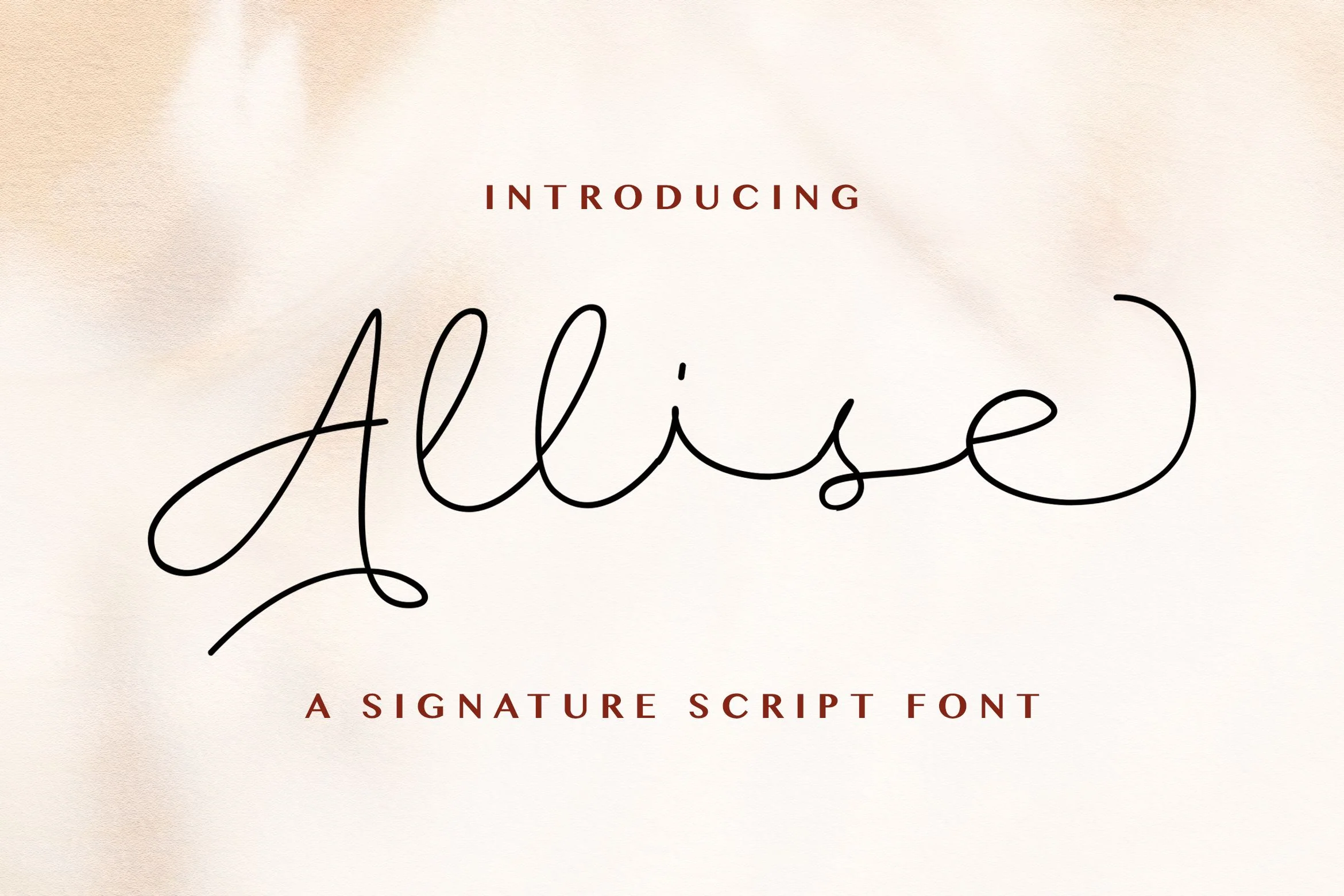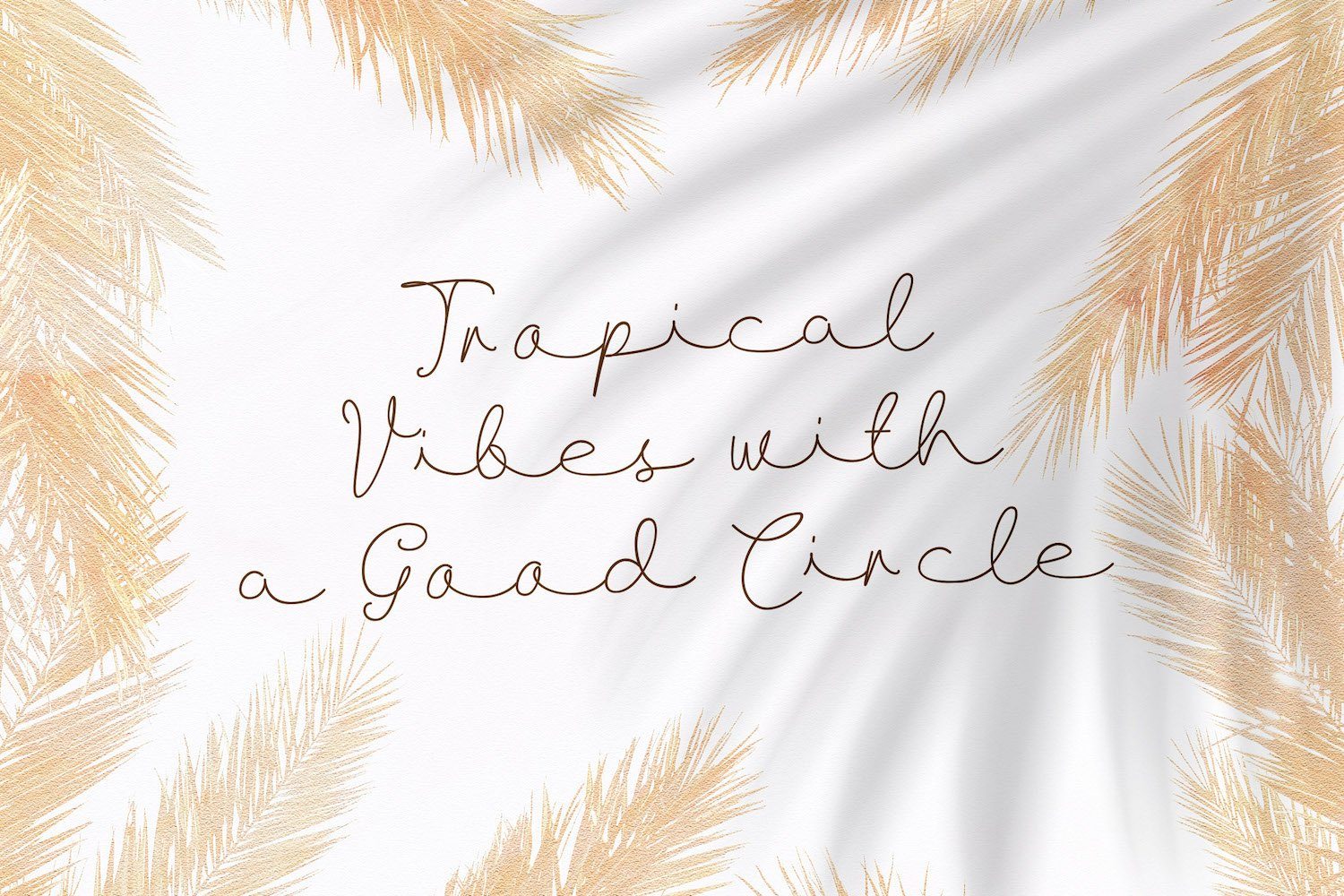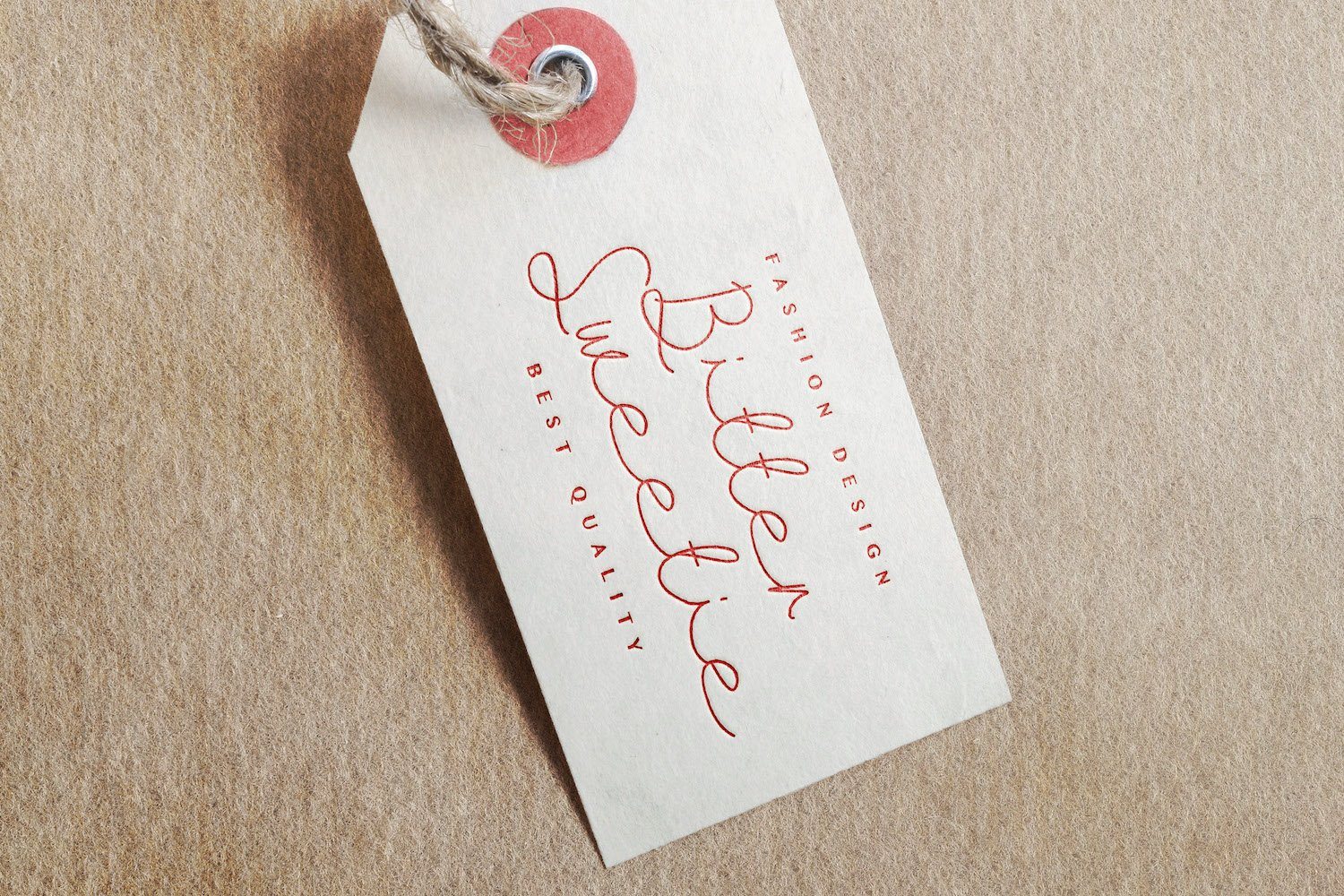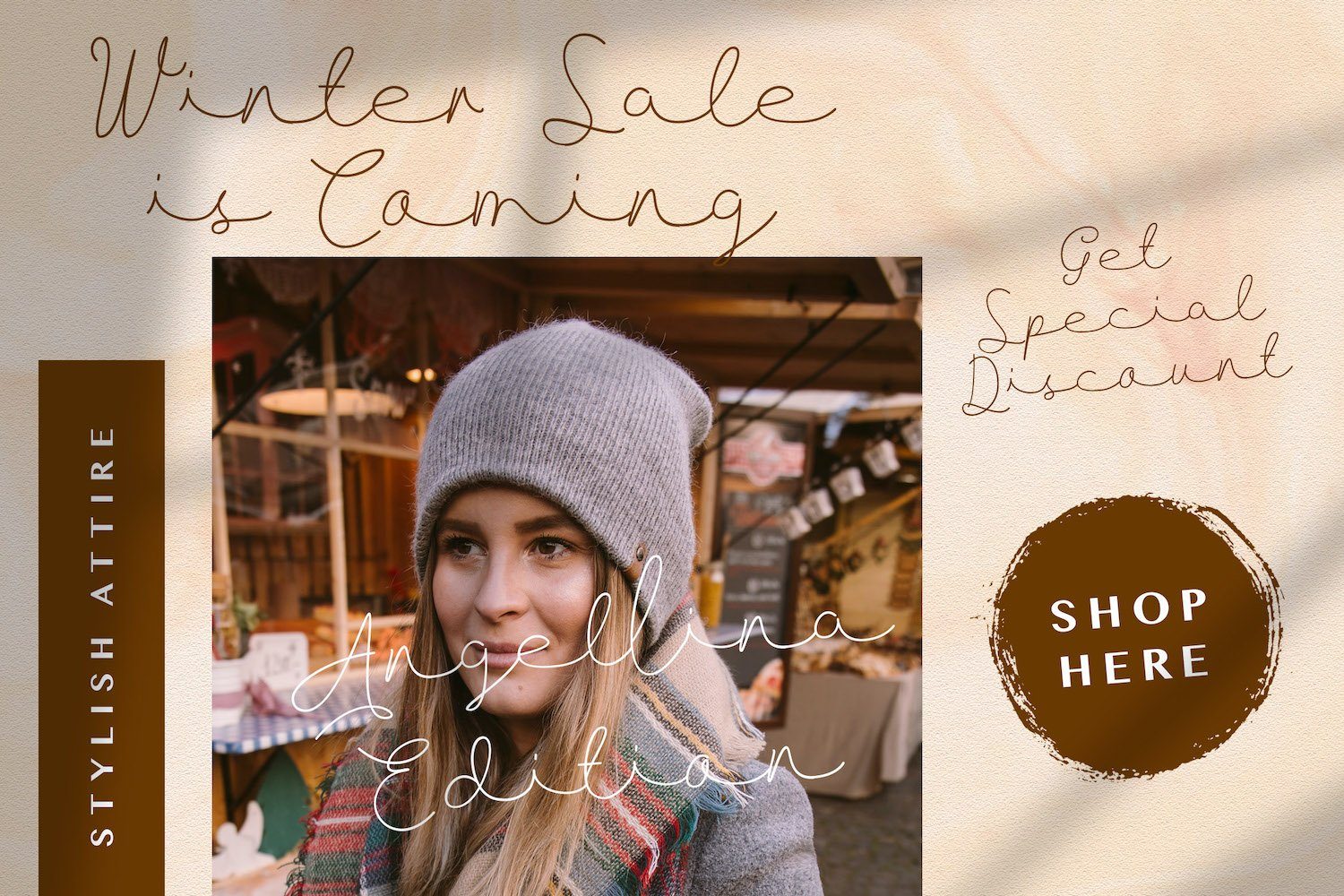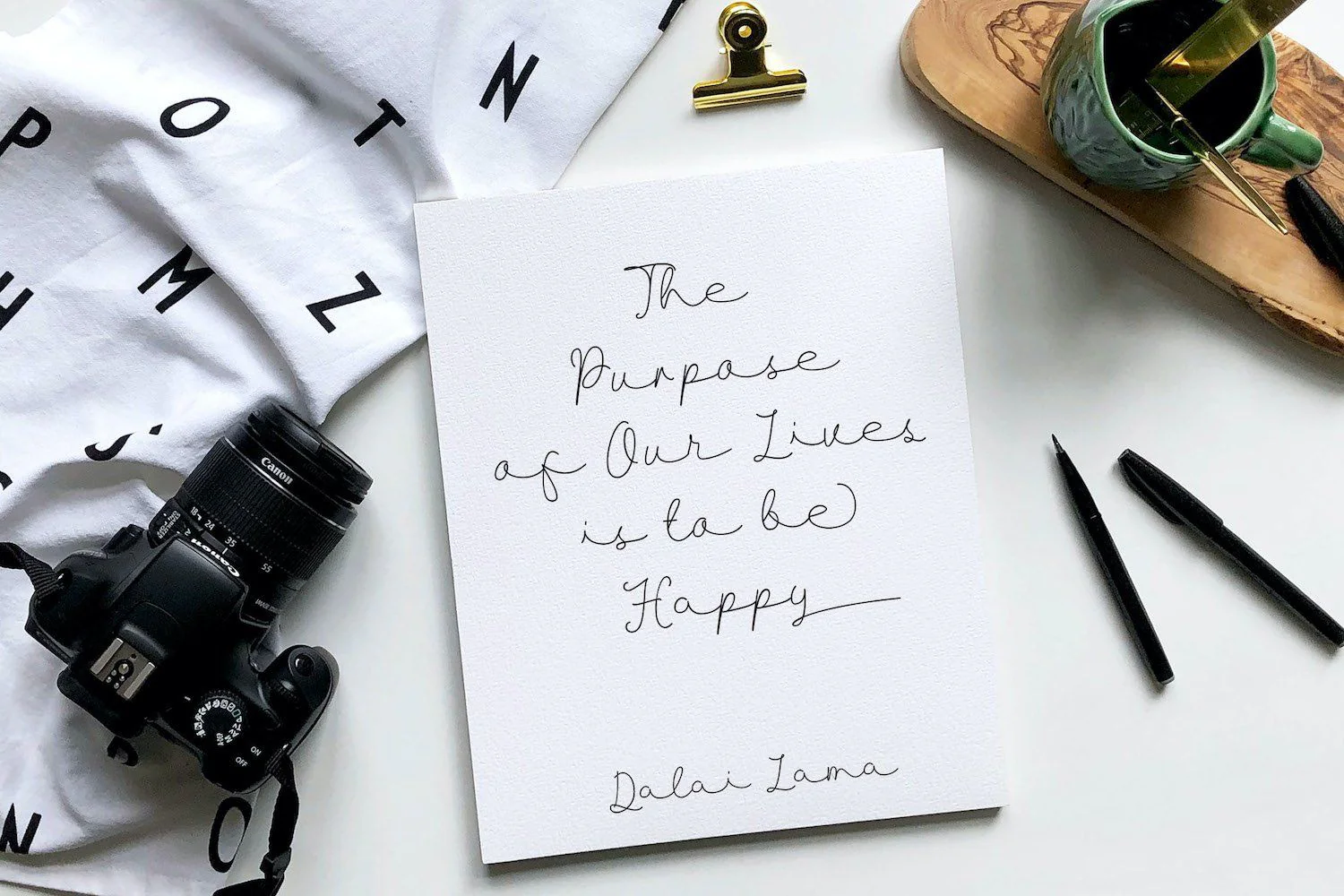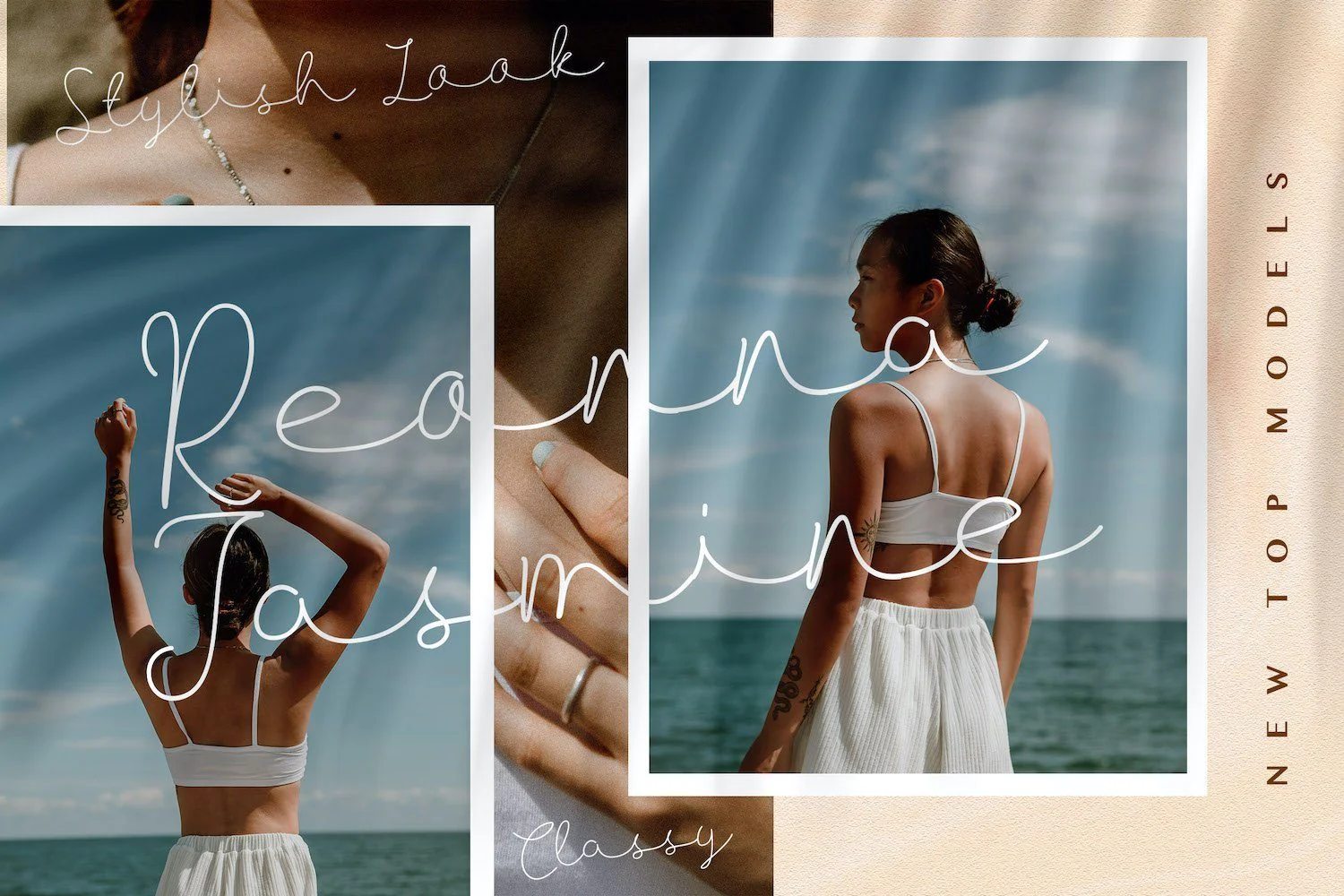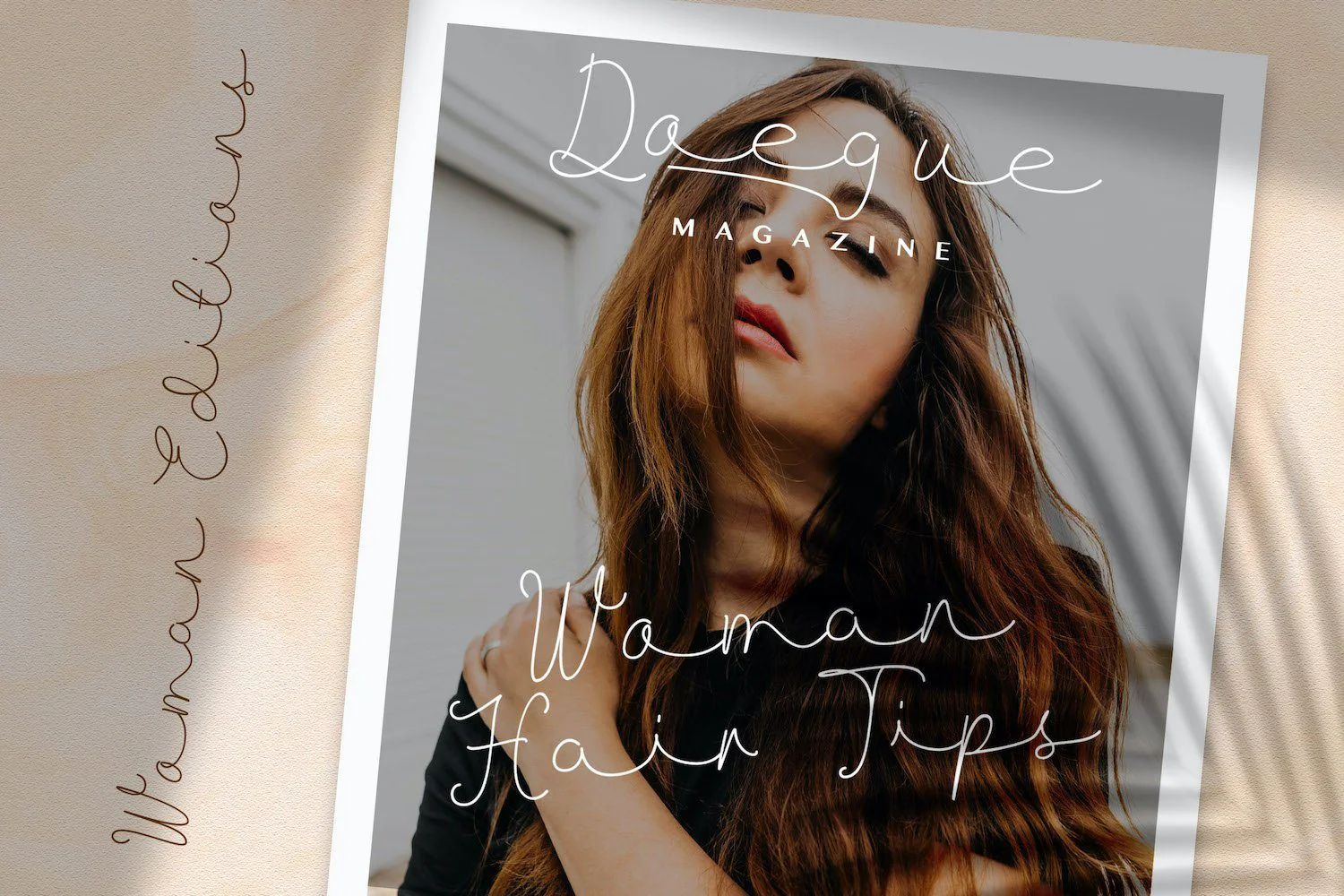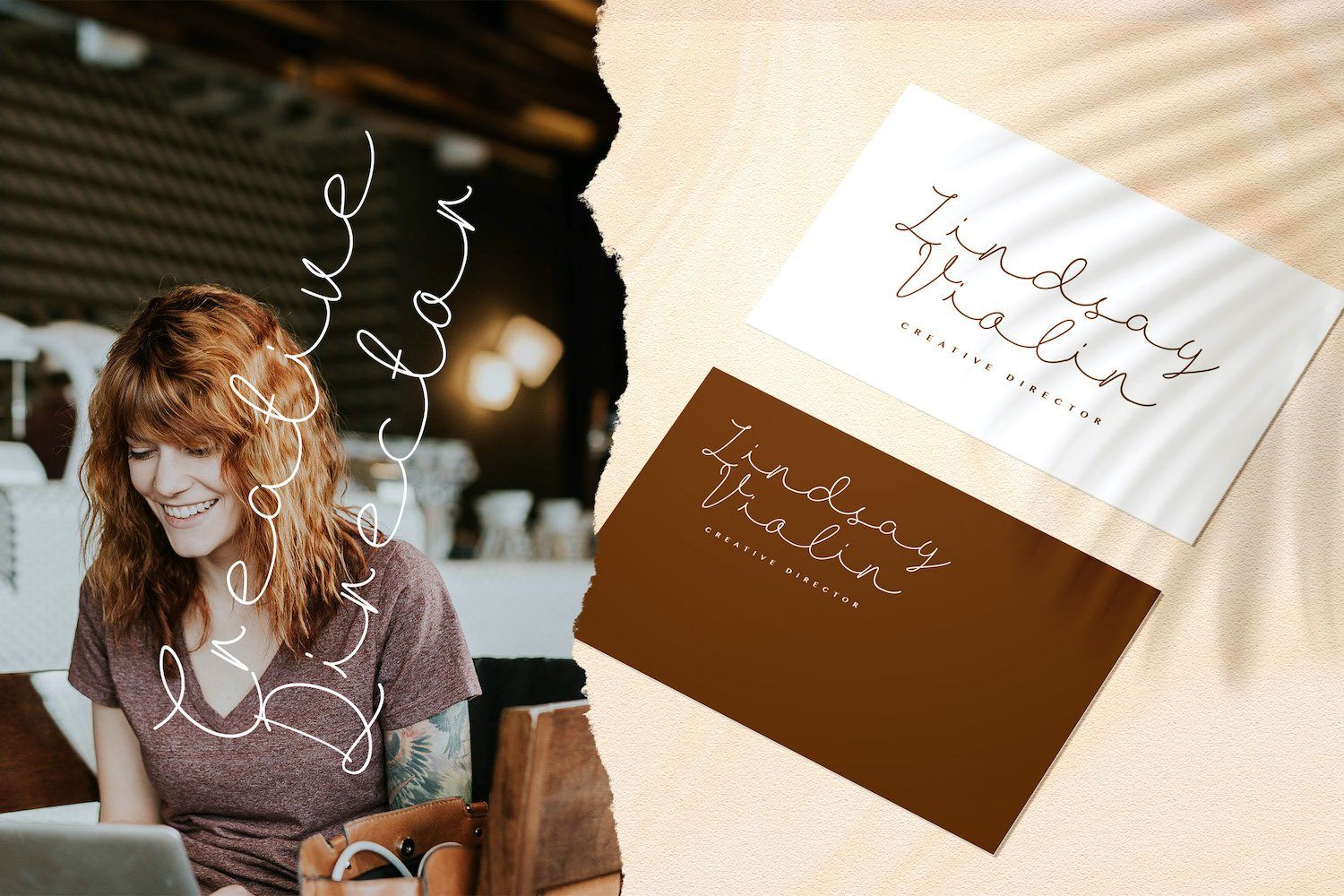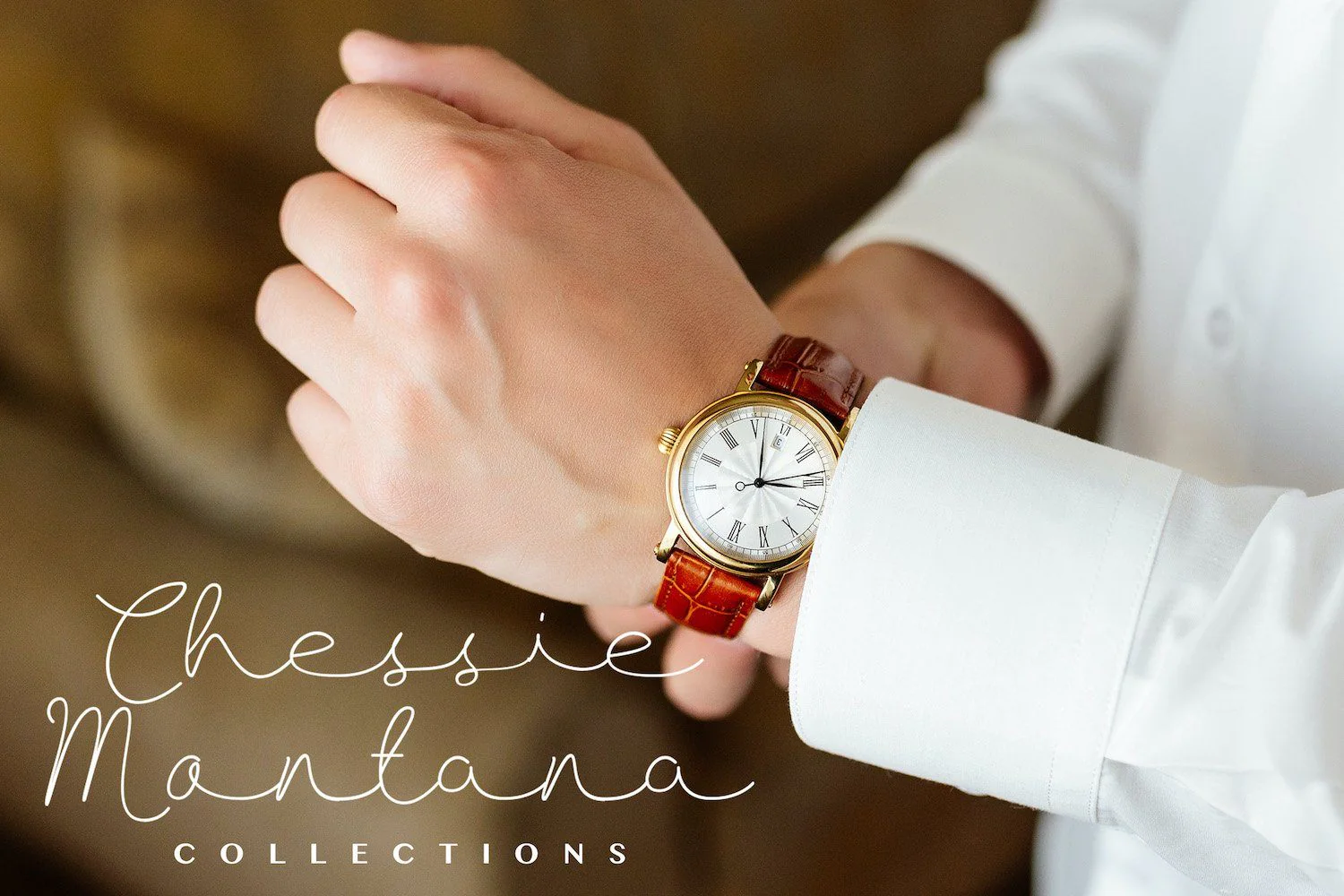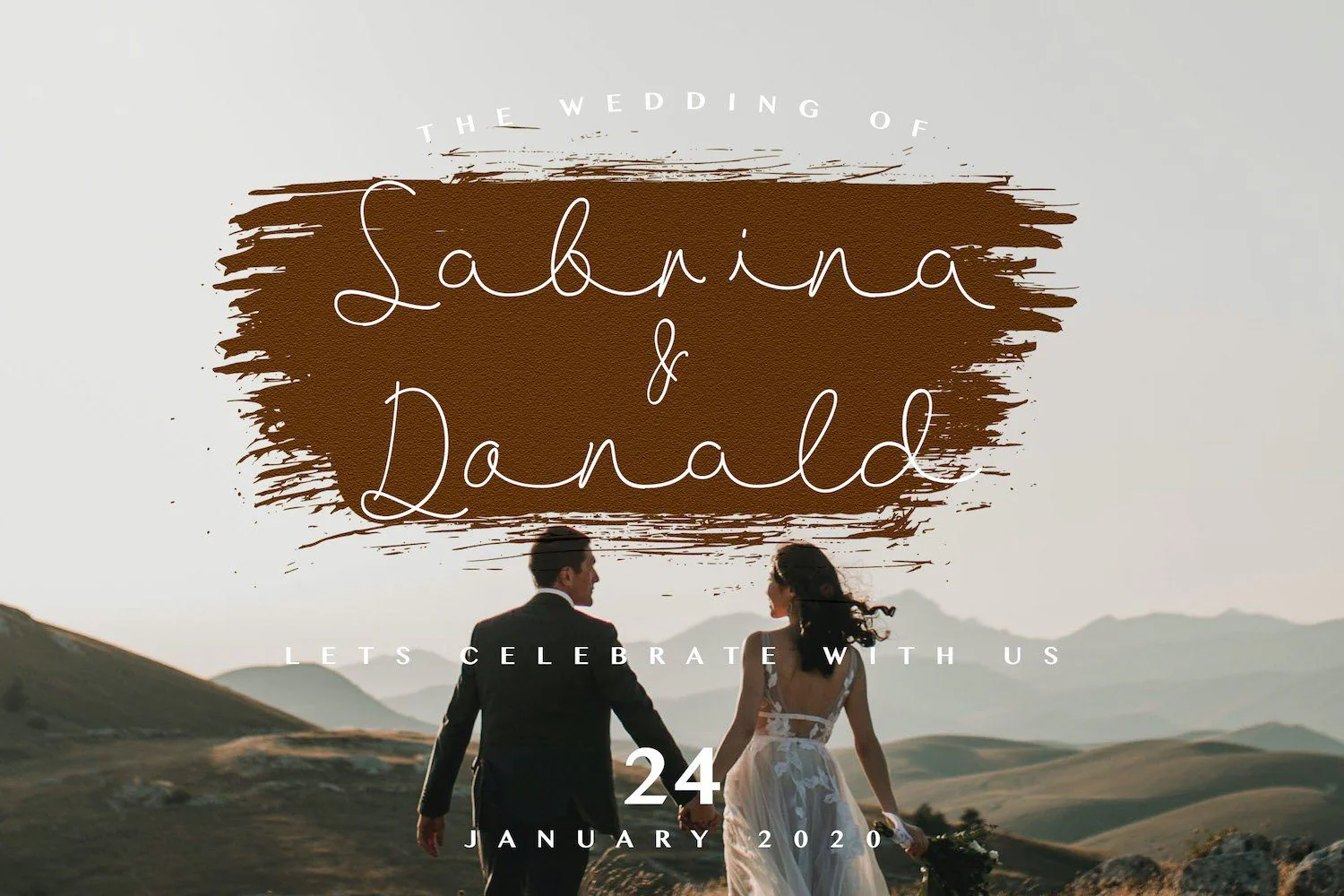
Allise - Signature Script Font
Introducing Allise - Signature Script Font
Allise is a delicate and beautifully designed handwritten font. Its elegant and well rounded letters make this font a masterpiece. Fall in love with its distinct style and use it to create spectacular designs!
Introducing Allise - Signature Script Font
Allise is a delicate and beautifully designed handwritten font. Its elegant and well rounded letters make this font a masterpiece. Fall in love with its distinct style and use it to create spectacular designs!